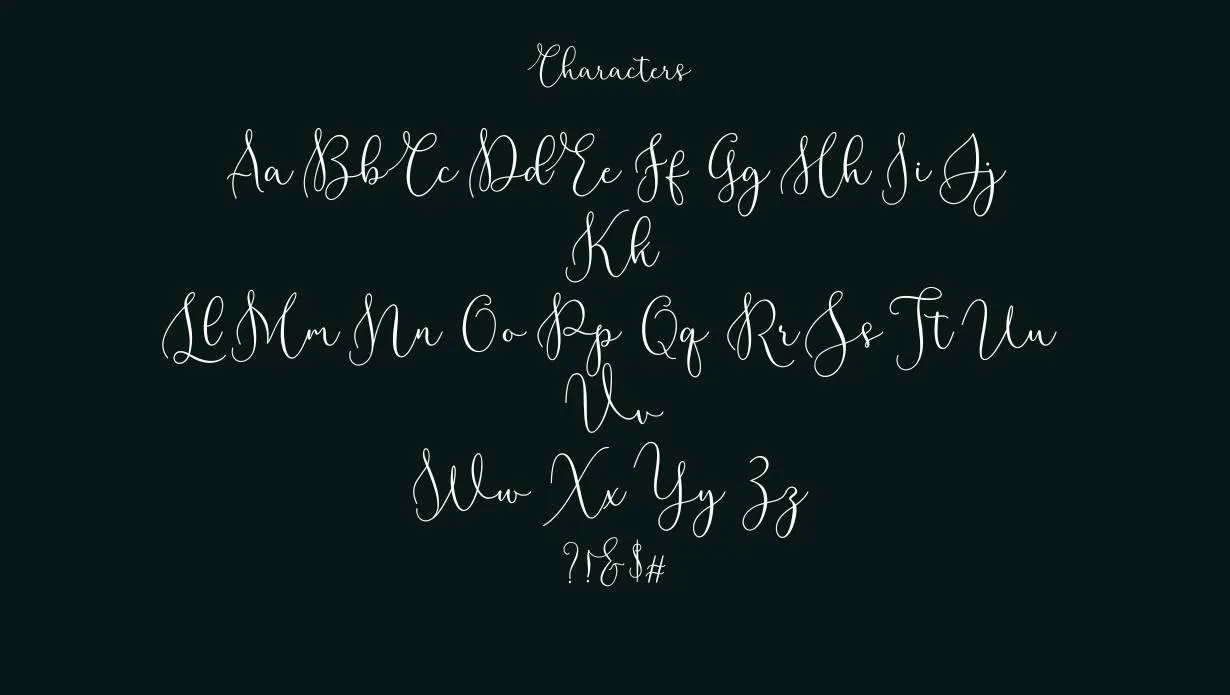
Rottarity Feminine Script Font brings a delicate and feminine touch to design projects. Commonly used in beauty and fashion branding, as well as in wedding invitations, this script typeface exudes grace and charm.
- Rottarity Feminine Script Regular
| Name | Rottarity Feminine Script Font |
| Designer | Siwox Linetotype |
| Style | Calligraphy |